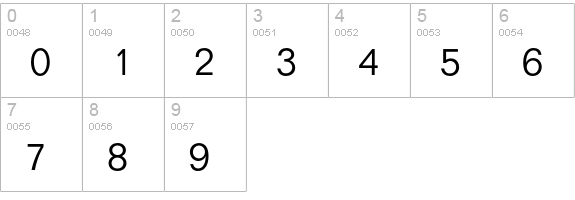
Folio BQ Light Font Details
Folio BQ Light is a refined, elegant variant in the Folio typeface family \xE2\x80\x94 well suited to elegant body text, refined sub-headings, and luxury branding.
Folio BQ Light is a beautifully crafted font that exudes elegance and sophistication. Its slender and graceful design makes it perfect for adding a touch of refinement to any project. The delicate strokes and balanced proportions of this font give it a timeless appeal that is versatile and stylish. What makes Folio BQ Light even more remarkable is that it is available for free download at FontsMarket.com. This means that you can easily access this exquisite font and use it in your designs without any cost. Whether you are working on a branding project, creating invitations, designing a website, or crafting marketing materials, Folio BQ Light is a fantastic choice that will elevate your work to the next level. Don't miss out on the opportunity to enhance your designs with the sophistication of Folio BQ Light. Download it for free today at FontsMarket.com and unlock a world of creative possibilities.